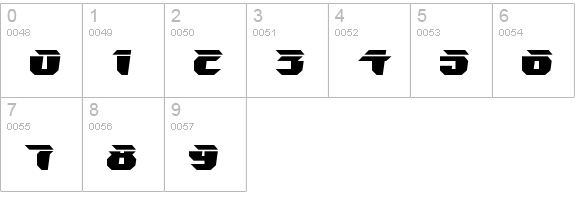
V5 Ampon Warped Font Details
Introducing V5 Ampon Warped, a mesmerizing font that will transport your designs to another dimension. With its unique and distorted letterforms, this font adds a touch of intrigue and mystery to any project. Whether you're designing a poster, logo, or website, V5 Ampon Warped is guaranteed to captivate your audience and leave a lasting impression. This font brings a sense of chaos and unpredictability, as each letter appears to twist and contort in its own dynamic way. The irregular shapes create an illusion of movement, giving your designs an energetic and edgy vibe. V5 Ampon Warped is perfect for projects that require a bold and unconventional approach, pushing the boundaries of traditional typography. Not only does V5 Ampon Warped offer stunning visual appeal, but it also provides versatility and ease of use. Its legibility remains intact despite its distorted nature, allowing for clear communication and effortless readability. Whether you're using it for headlines, captions, or body text, V5 Ampon Warped ensures that your message is delivered with impact and style. And the best part? V5 Ampon Warped is available for free! That's right, you can download this extraordinary font at FontsMarket.com without spending a dime. Whether you're a professional designer or a hobbyist, this font allows you to unleash your creativity without breaking the bank. Take advantage of this fantastic opportunity to add a touch of innovation to your designs while keeping your budget intact. So why wait? Download V5 Ampon Warped today and embark on a typographic adventure like no other. With its mesmerizing distortion and free availability at FontsMarket.com, this font is an absolute must-have for any design enthusiast. Let your imagination run wild and create extraordinary designs that will leave a lasting impression.